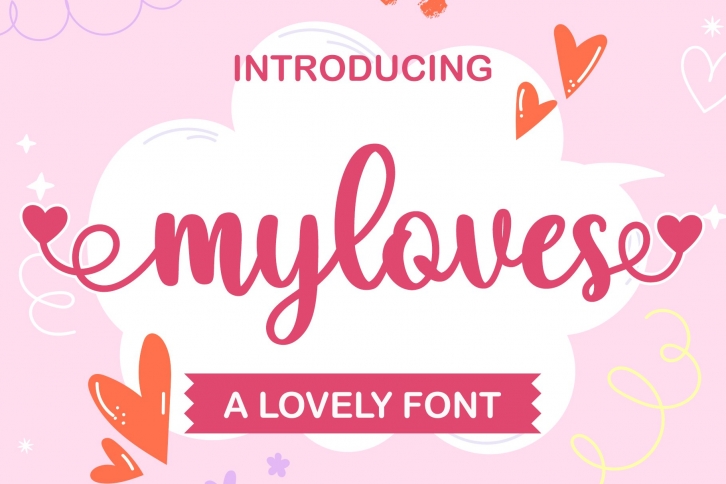
Myloves is a gorgeous font that was realeased on August 11, 2021. The font can be used in many style contexts and design environments. Perfect for invitations, magazines, websites, logos, and more! It was designed by BearyType and the file size is 14.45 MB. Thanks for checking out this font!